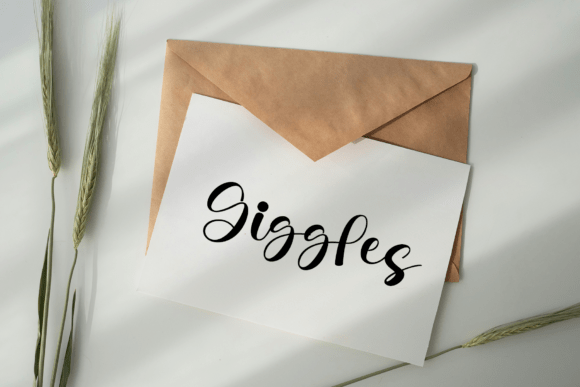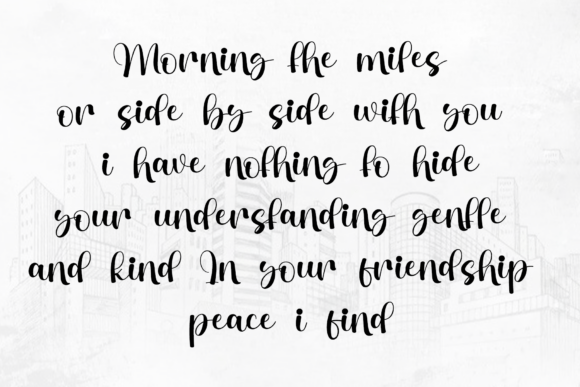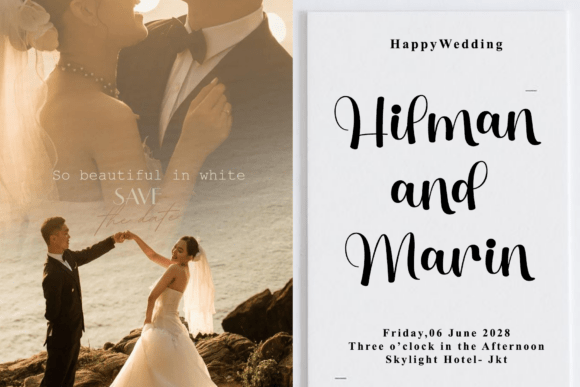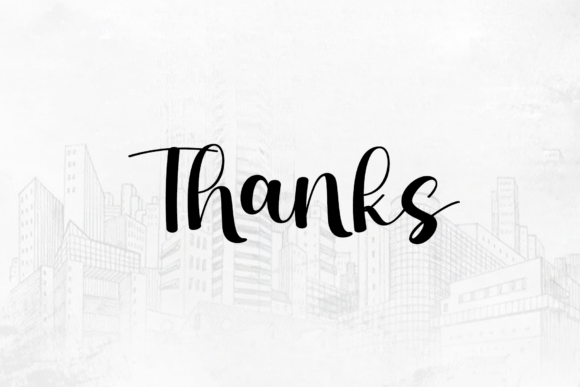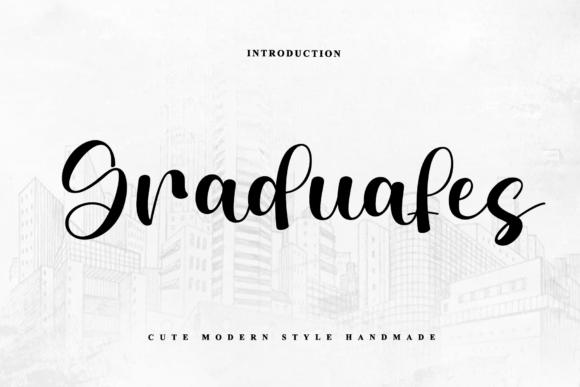
Introducing Graduates Font: A Sophisticated Script Font for Artisanal Branding
In the world of typography, a well-crafted font can elevate a brand’s identity and make it stand out in a crowded market. For designers and crafters looking for a typeface that exudes sophistication, elegance, and a touch of artisanal charm, Graduates Font is an excellent choice. This beautiful script font strikes a perfect balance between calligraphic style and warm, organic aesthetic, making it ideal for artisanal food branding, boutique product packaging, upscale lifestyle marketing, and creative editorial titles.
Key Characteristics of Graduates Font
Graduates Font boasts several distinctive features that set it apart from other script fonts. Its high-contrast visual rhythm, achieved through thick, grounded downstrokes and delicate hairline connectors, creates a sense of dynamic movement and energy. The font’s defining characteristic, however, is the use of sweeping, looping ascenders that give it a customized, artisanal feel. These elegant loops evoke a sense of handcrafted artistry, making Graduates Font perfect for brands that value uniqueness and exclusivity.
Design Elements and Aesthetic
The design of Graduates Font is rooted in traditional calligraphy, yet it has a distinctly modern and refined feel. The font’s thick downstrokes provide a sense of stability and grounding, while the delicate hairline connectors add a touch of whimsy and playfulness. The sweeping ascenders, which loop and curve in a fluid motion, create a sense of continuity and flow. This combination of bold and delicate elements results in a font that is both visually striking and endearing.
Use Cases for Graduates Font
Graduates Font is a versatile typeface that can be used in a variety of contexts, from branding and packaging to editorial design and marketing materials. Some of the most suitable use cases for this font include:
- Artisanal Food Branding: Graduates Font is perfect for food brands that want to convey a sense of high-quality, handcrafted products. Its elegant and sophisticated aesthetic makes it ideal for labels, packaging, and marketing materials.
- Boutique Product Packaging: For boutique brands that offer unique, handmade products, Graduates Font provides a beautiful and distinctive way to communicate their brand story.
- Upscale Lifestyle Marketing: This font is also well-suited for luxury brands that cater to a high-end audience. Its sophisticated and refined aesthetic makes it perfect for marketing materials, such as brochures, flyers, and social media graphics.
- Creative Editorial Titles: Graduates Font can add a touch of elegance and sophistication to editorial designs, such as magazine titles, book covers, and blog headers.
Why Choose Graduates Font?
With so many script fonts available, why choose Graduates Font? Here are a few compelling reasons:
- Unique and Distinctive: Graduates Font offers a distinctive and artisanal aesthetic that sets it apart from more generic script fonts.
- High-Quality Design: The font is designed with attention to detail and a deep understanding of typography, ensuring that it looks great in a variety of contexts.
- Versatile: Graduates Font can be used in a range of applications, from branding and packaging to editorial design and marketing materials.
- Elegant and Sophisticated: The font’s elegant and sophisticated aesthetic makes it perfect for brands that want to convey a sense of luxury and refinement.
Graduates Font is a beautiful and sophisticated script font that offers a unique blend of calligraphic style and warm, organic aesthetic. Its high-contrast visual rhythm, sweeping ascenders, and delicate hairline connectors make it perfect for artisanal food branding, boutique product packaging, upscale lifestyle marketing, and creative editorial titles. With its distinctive and artisanal aesthetic, high-quality design, versatility, and elegant sophistication, Graduates Font is an excellent choice for designers and crafters looking to elevate their brand’s identity.